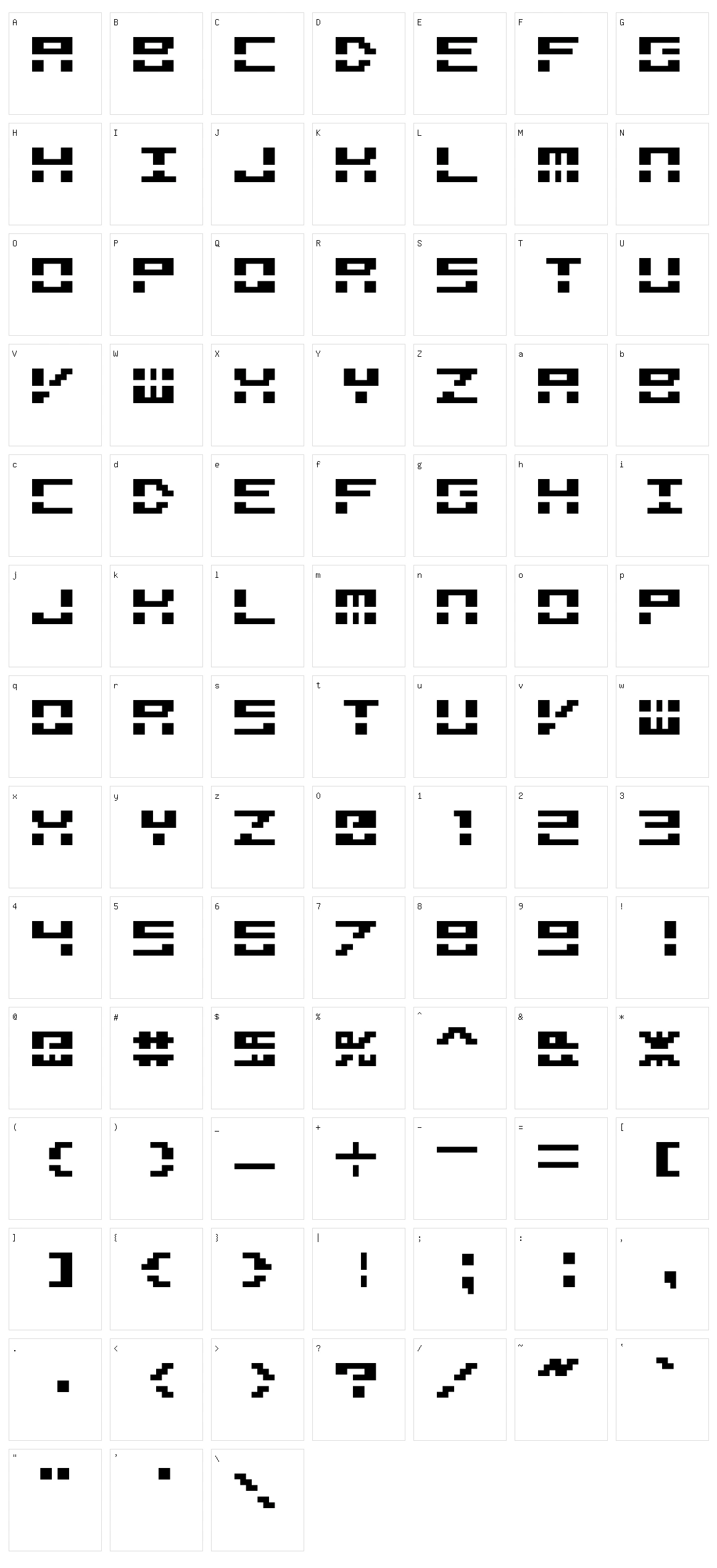
M40 Bitline
ƒeƒNƒm‚Á‚Û‚­‚ăQ[ƒ€‚Á‚Û‚¢ƒrƒbƒgƒ}ƒbƒvƒtƒHƒ“ƒgB
ƒtƒHƒ“ƒg‚̉º•”‚É“ü‚Á‚½ƒ‰ƒCƒ“‚ª“Á’¥“IB
ƒtƒHƒ“ƒg–¼‚́uƒrƒbƒgƒ}ƒbƒv{ƒ‰ƒCƒ“v‚ðƒCƒ[ƒW‚µ‚Ä
ƒ_ƒbƒ`ƒgƒ‰ƒ“ƒX‚Ì—L–¼‹ÈuDUTCH FORCE / Deadlinev‚ð
‚à‚¶‚Á‚Ä–¼•t‚¯‚Ü‚µ‚½B